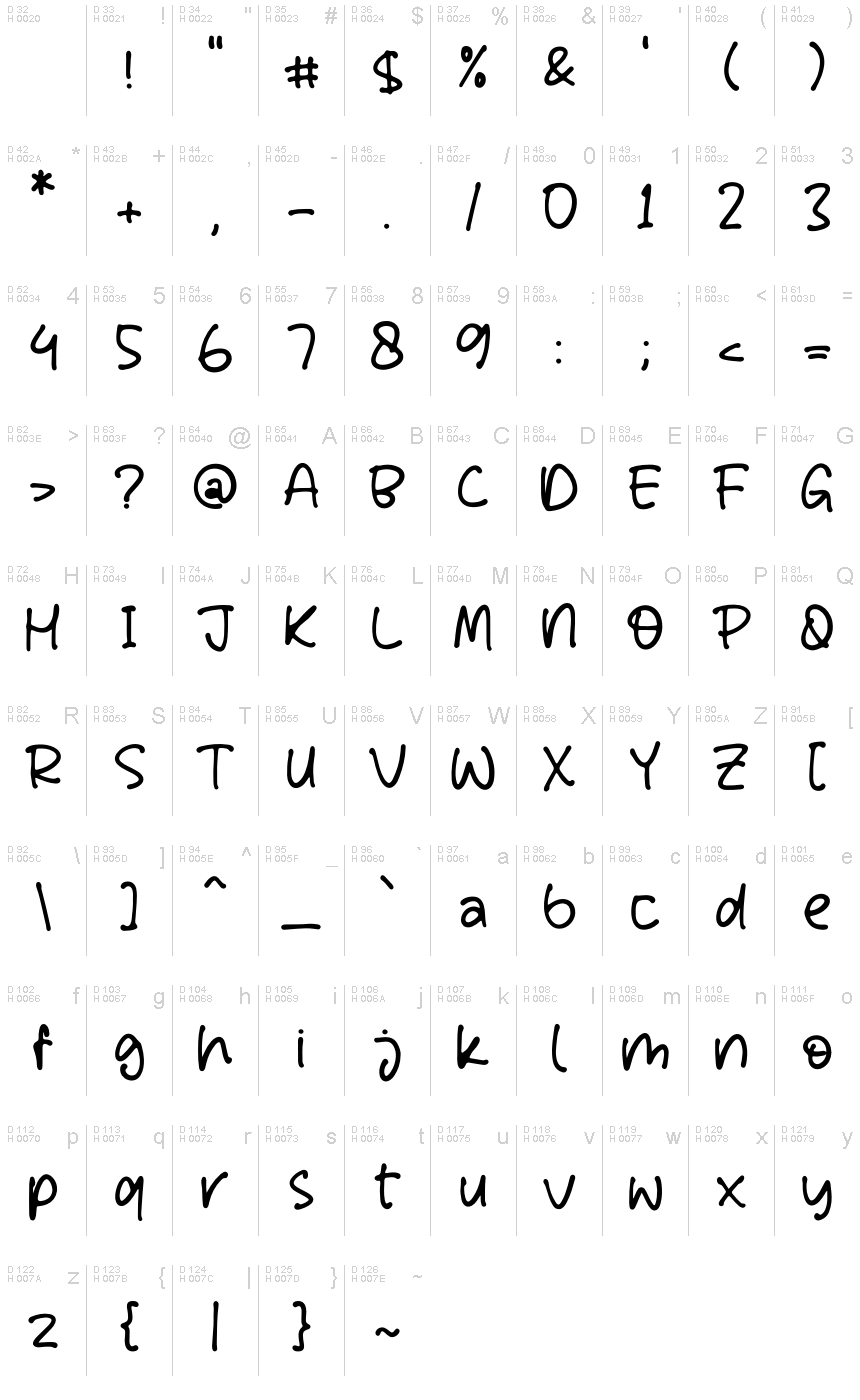
Wondering Notes, a creation of Perspectype Studio from Letterena.com, is a font that captures the essence of personal touch with its handwritten style. The flowing letters exude a casual elegance, reminiscent of a scribe's quick yet graceful penmanship. Its varying strokes convey authenticity and warmth, making it an endearing choice for projects that aim to establish a connection with the audience.
In terms of practical application, Wondering Notes lends itself beautifully to creative endeavors such as invitation cards, branding for boutique businesses, or any medium where an intimate and bespoke feel is desired. Its aesthetic charm ensures that messages written in this font are not just read but felt, inviting viewers into a world where each word is crafted with care.